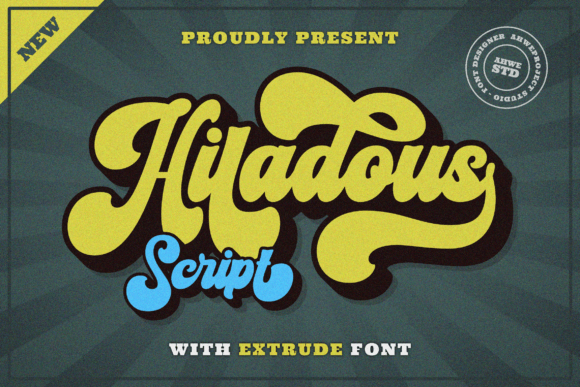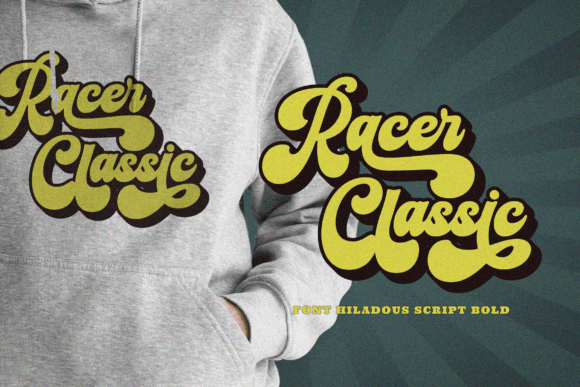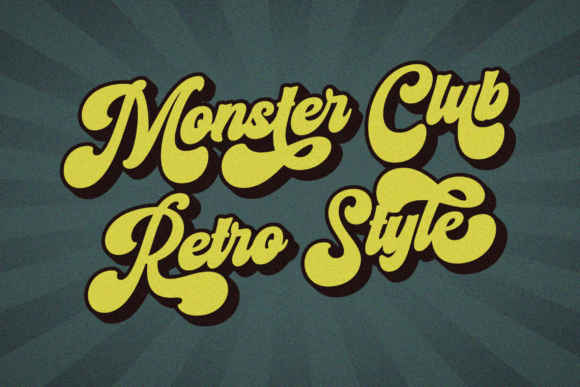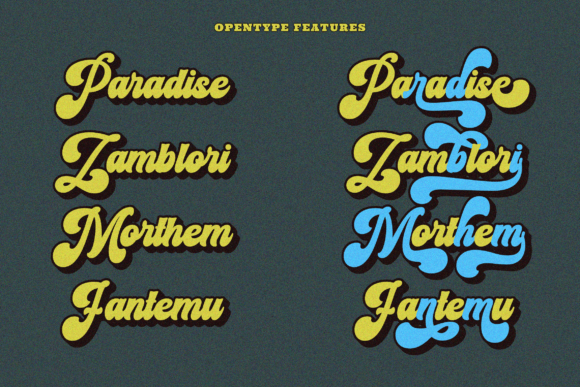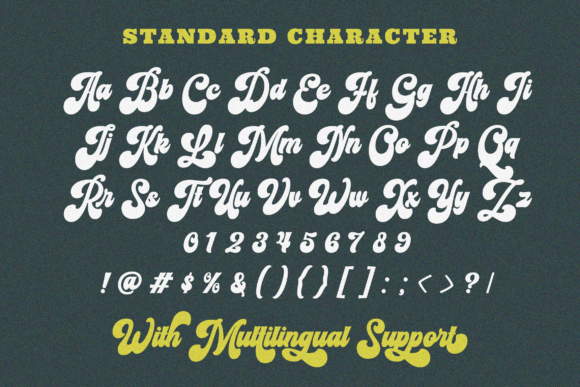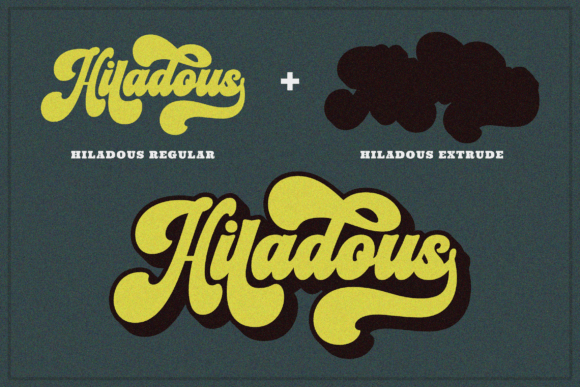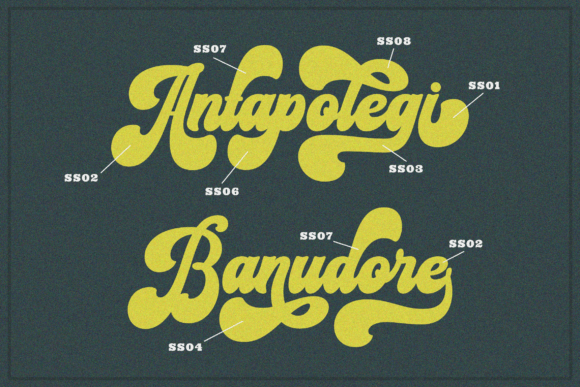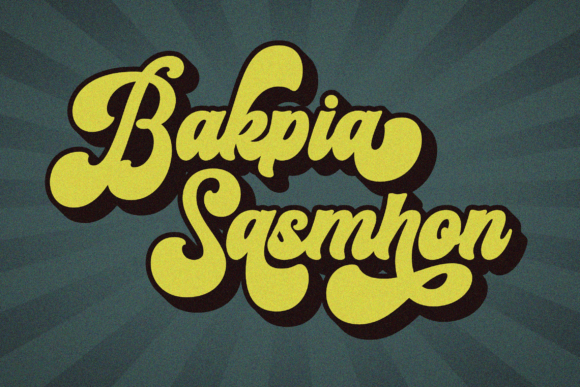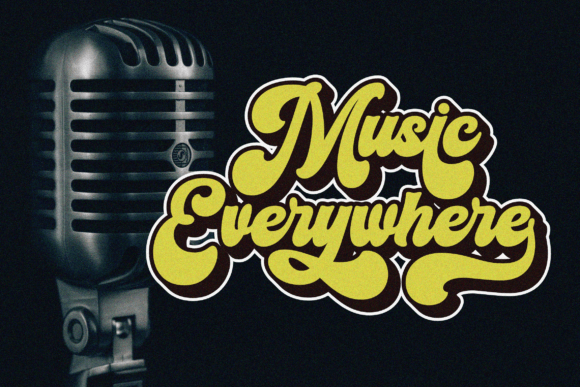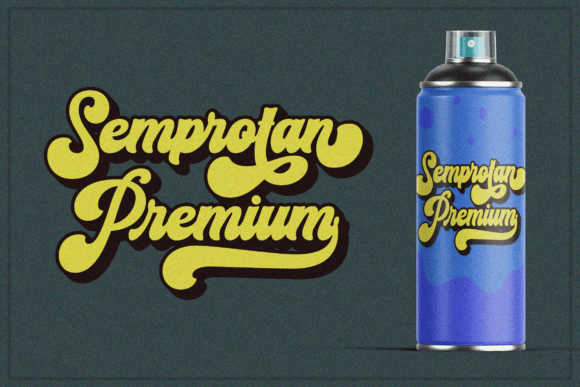
Hiladous Font
Retro Bold Handwriting for Strong and Nostalgic Designs
If you’re looking to add a confident vintage feel to your next project, Hiladous might be just the typeface you need. This retro bold handwriting font brings a dynamic and nostalgic presence to any design. With thick strokes, bold curves, and vintage charm, Hiladous is the perfect choice for creatives who want to make a strong impression.
From posters to apparel, this font infuses personality and power into every word you set.
Meet Hiladous: Confident, Stylish, and Full of Character
Hiladous captures the essence of retro design while staying fresh and easy to read. Its handwritten style gives it an organic touch, yet the bold weight ensures it commands attention. Whether you’re creating a headline or building a brand, this retro bold handwriting font helps your message stand out loud and proud.
Here are just a few ways you can use Hiladous:
• Vintage logos and product labels
• Throwback event posters and flyers
• Social media graphics and banners
• Apparel design, tote bags, and stickers
• Retro-style quotes or digital printables
• YouTube thumbnails and podcast covers
Its flexibility allows you to take your creative direction in any nostalgic or edgy direction you like.
Moreover, Hiladous is PUA encoded, giving you instant access to all its alternate glyphs, swashes, and stylistic characters. No extra software is needed, so you can jump right into the fun of designing.
Why Designers Choose Hiladous
Hiladous is bold for a reason — it grabs attention while keeping its hand-drawn charm. Here’s why it stands out in the design world:
• Strong visual presence and vintage personality
• Retro look with a contemporary twist
• Easy to read in both large and small formats
• PUA encoded for total creative freedom
• Perfect for both digital and printed projects
This retro bold handwriting font doesn’t just look good — it works hard to make your content pop.
Perfect for Creatives, Marketers, and Vintage Lovers
Hiladous is an ideal match for designers working on bold branding, creative content, and anything nostalgic. It especially shines in:
• Branding projects with a retro or funky theme
• Marketing campaigns targeting Gen Z or millennial audiences
• Creative shops, handmade products, or event merch
• 70s or 80s-themed party invitations and materials
• Unique blog headers or video intros
Its personality makes it a favorite for modern creatives who appreciate vintage flair with a bold twist.
Hiladous is more than just a font — it’s an attitude. With its confident strokes and vintage soul, this retro bold handwriting font helps every project make a memorable impact. Whether you’re building a brand or designing a statement tee, Hiladous brings the energy and authenticity your work deserves.